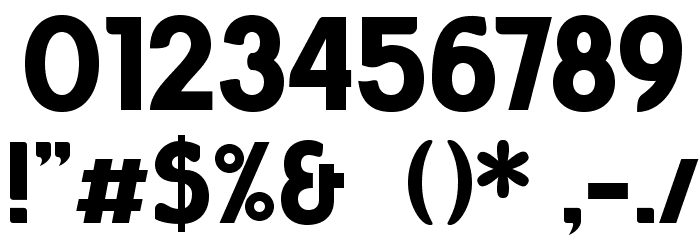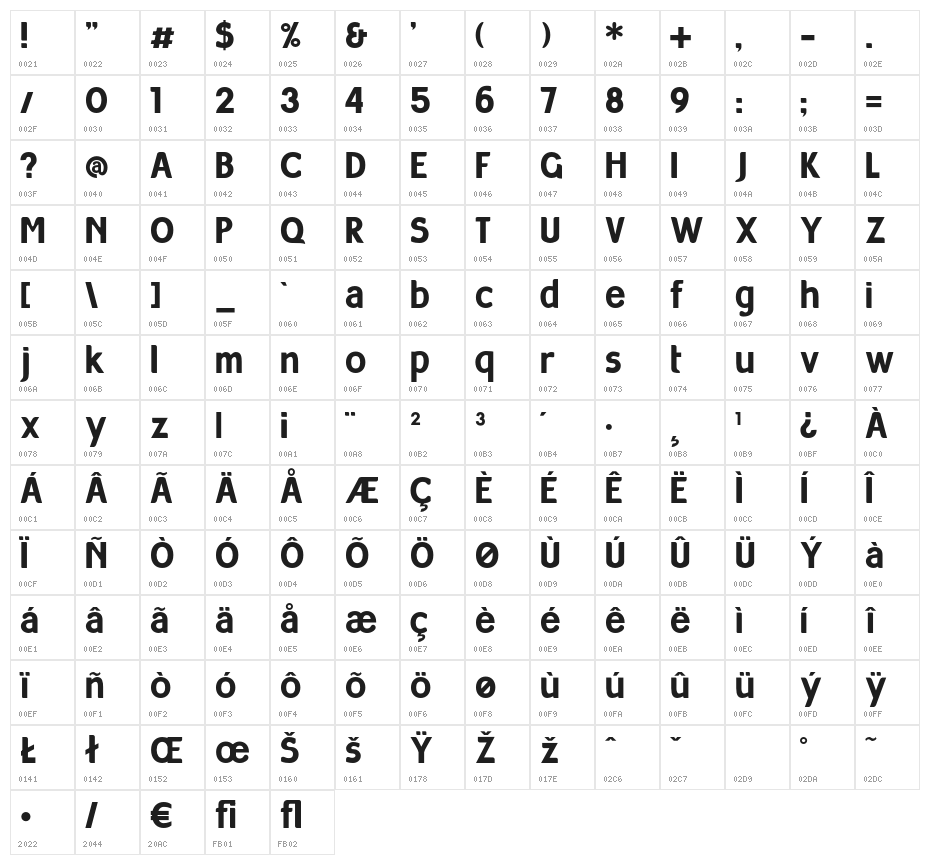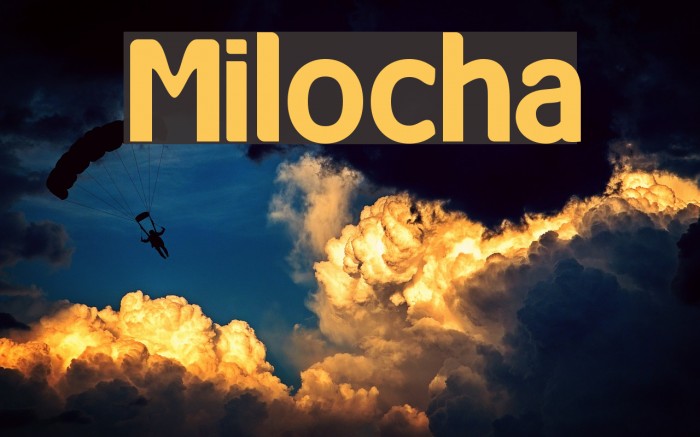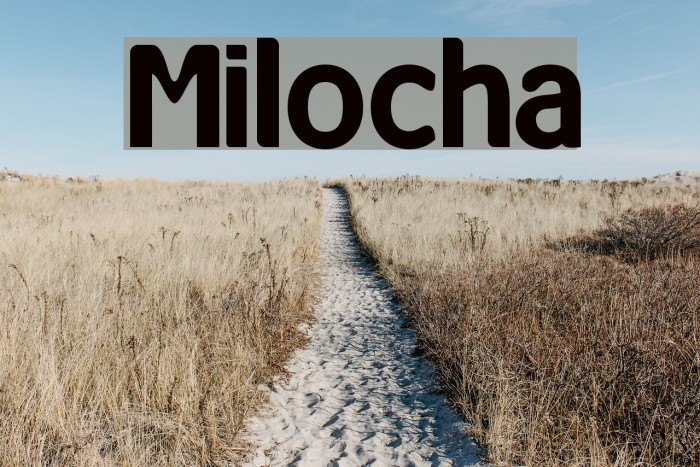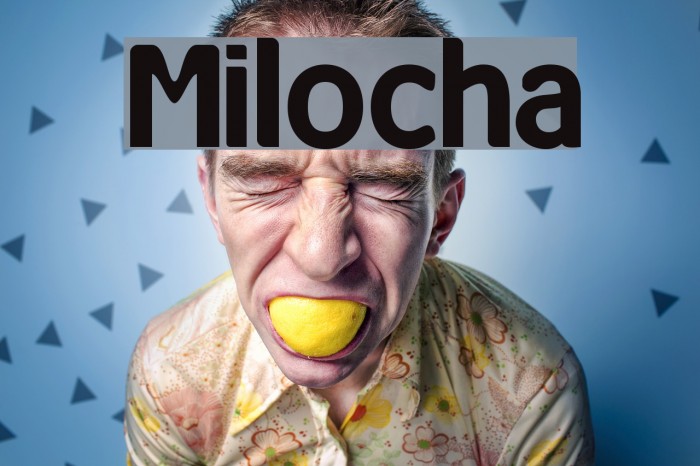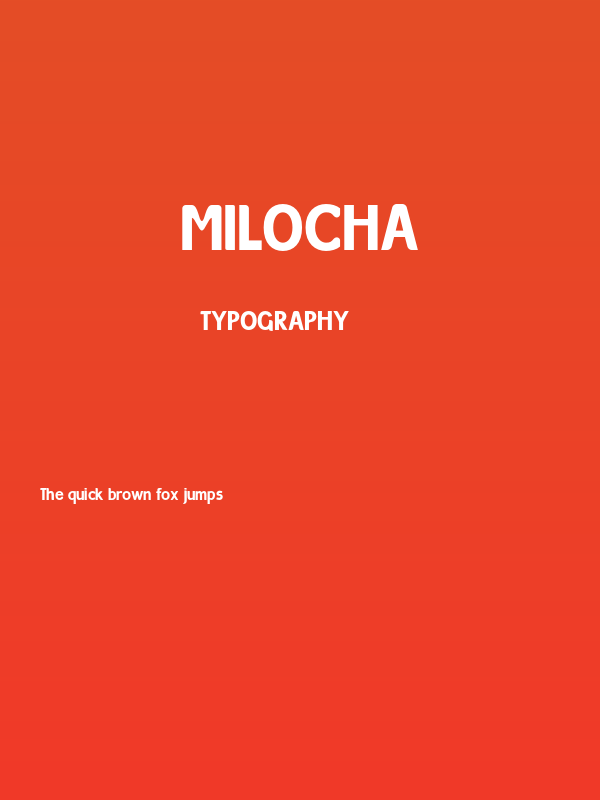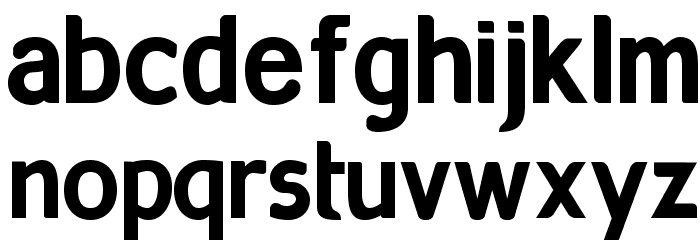
Milocha Font
Milocha Description
This font features a bold and modern sans-serif style with clean lines and a strong presence. The characters are well-defined with a consistent stroke width, giving it a robust and confident appearance. The uppercase letters are slightly taller than the lowercase, providing a clear distinction between them. The numerals are proportionate and align well with the overall design, ensuring readability. Special characters are included, maintaining the same boldness and clarity as the alphanumeric characters. This font is versatile, suitable for various design needs where a strong and modern look is desired.
| Proposed Projects | Ideal for branding, headlines, posters, and digital media where a bold statement is needed. |